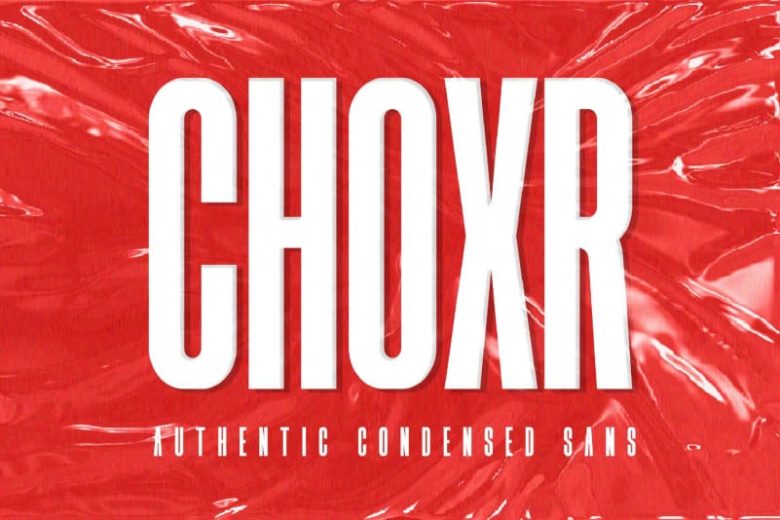
Choxr Sans Serif Font
Introduce you a new Choxr Sans Serif Font – A custom handmade Sans Serif typeface with unique design and hybrid lettering styles. It’s designed and shared by Almarkhatype Studio. This font is inspired by famous logos of shoes and brands that have very strong characteristics.